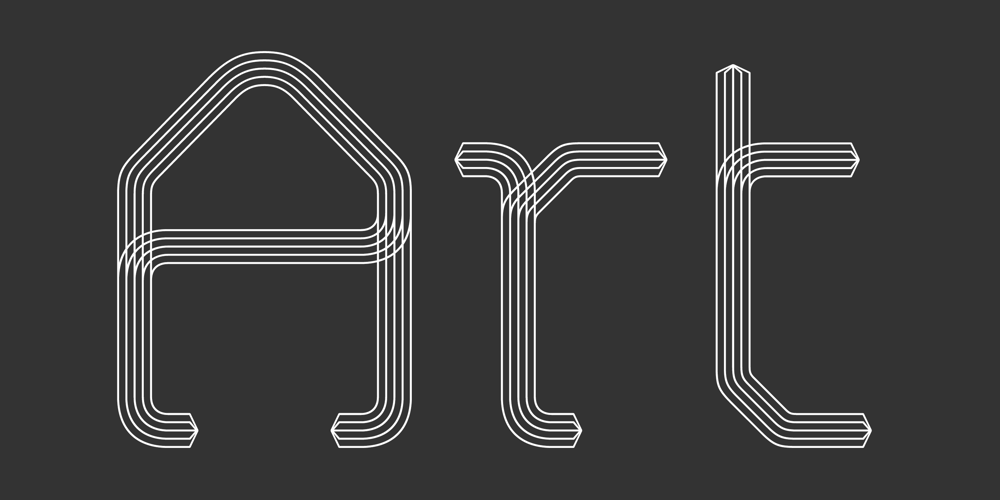
FS Conrad
FS Conrad font
FS Conrad Font Family was designed by Phil Garnham and published by Fontsmith. FS Conrad contains 2 styles and family package options. Art into typeIn 2008, Fontsmith were approached by their friend, Jon Scott, to investigate whether a typeface could assume the aesthetic of one artist’s body of work. Jon’s not-for-profit charity, Measure, was organising an event for the artist, Conrad Shawcross, whose giant mechanical installation, entitled Chord, was going on public display in the long-disused Kingsway tram tunnel in Holborn.Chord explores the way we perceive time, as either a line or a cycle. Two enormous machines with dozens of rotating arms and moving in opposite directions, weave rope with almost infinite slowness.An unusual briefPhil Garnham visited Conrad in his Hackney studio to get a feel for his work and ideas. “Conrad is a very clever and philosophical guy. He struggled to see how typeface design had any relevance to him and his art. This was going to be a challenge.”The artist presented the type designer with a pile of rope and a huge diagram of sketches and mathematical workings. “This was, in essence, my brief.”Phil developed three concepts, the simplest of which ticked all the boxes. “The idea of the strokes in the letterforms appearing and ending at peaks or points of origin fitted perfectly with Conrad’s idea of time occurring and ending at two ends of the sculpture.”Two versionsPhil planned modules for two versions of the typeface: one with five lines in the letterforms and one with seven. He then drew the modules on-screen and twisted and turned them to build the machine that is FS Conrad.“This is not a simple headline typeface,” says Phil. “It’s not a rigid structure. It has varying character widths, and it’s informed by real typographic insight and proportions so that it actually works as piece of functioning, harmonious type.”